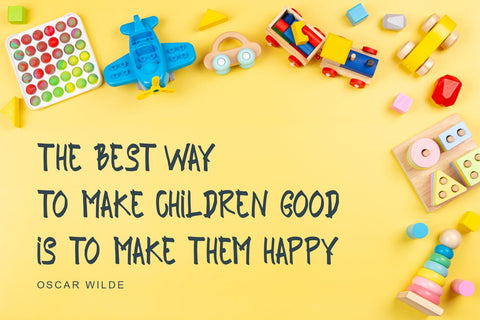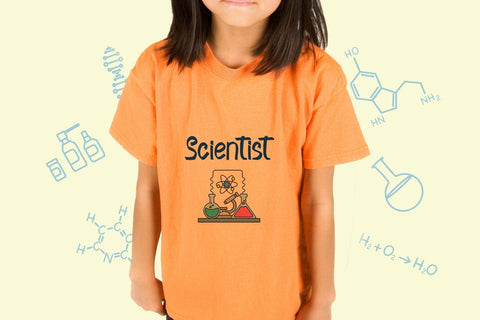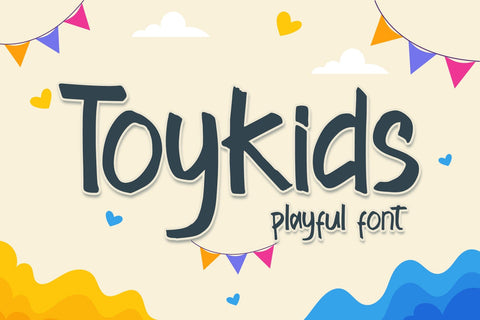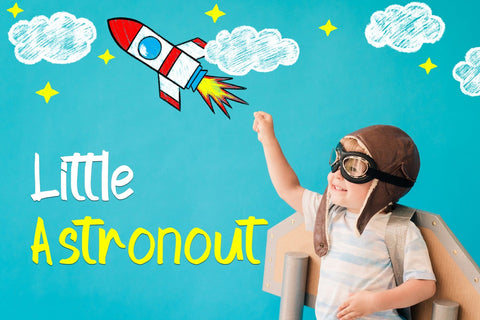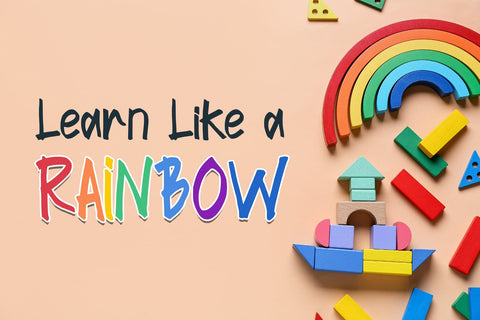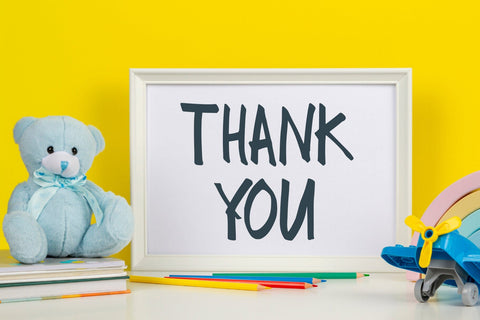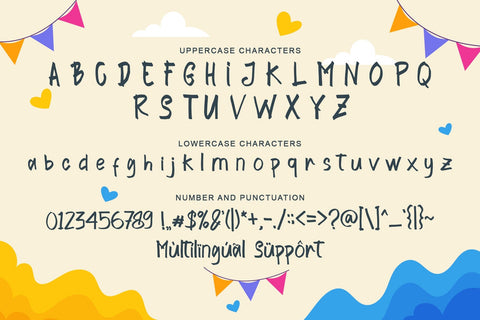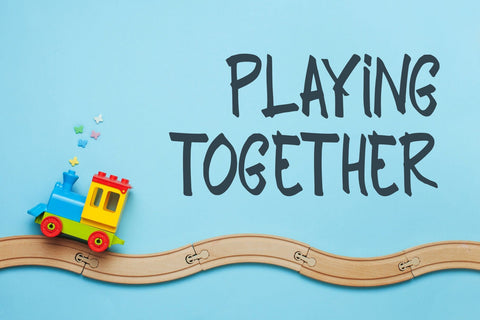
Toykids
Toykids is a playful and stylish font with a youthful spirit. Is suitable for both professional-looking projects such as branding designs, labels, websites, and business cards as well as casual designs like packaging, posters, flyers, quotes, social media posts, invitations, and special occasions cards, etc